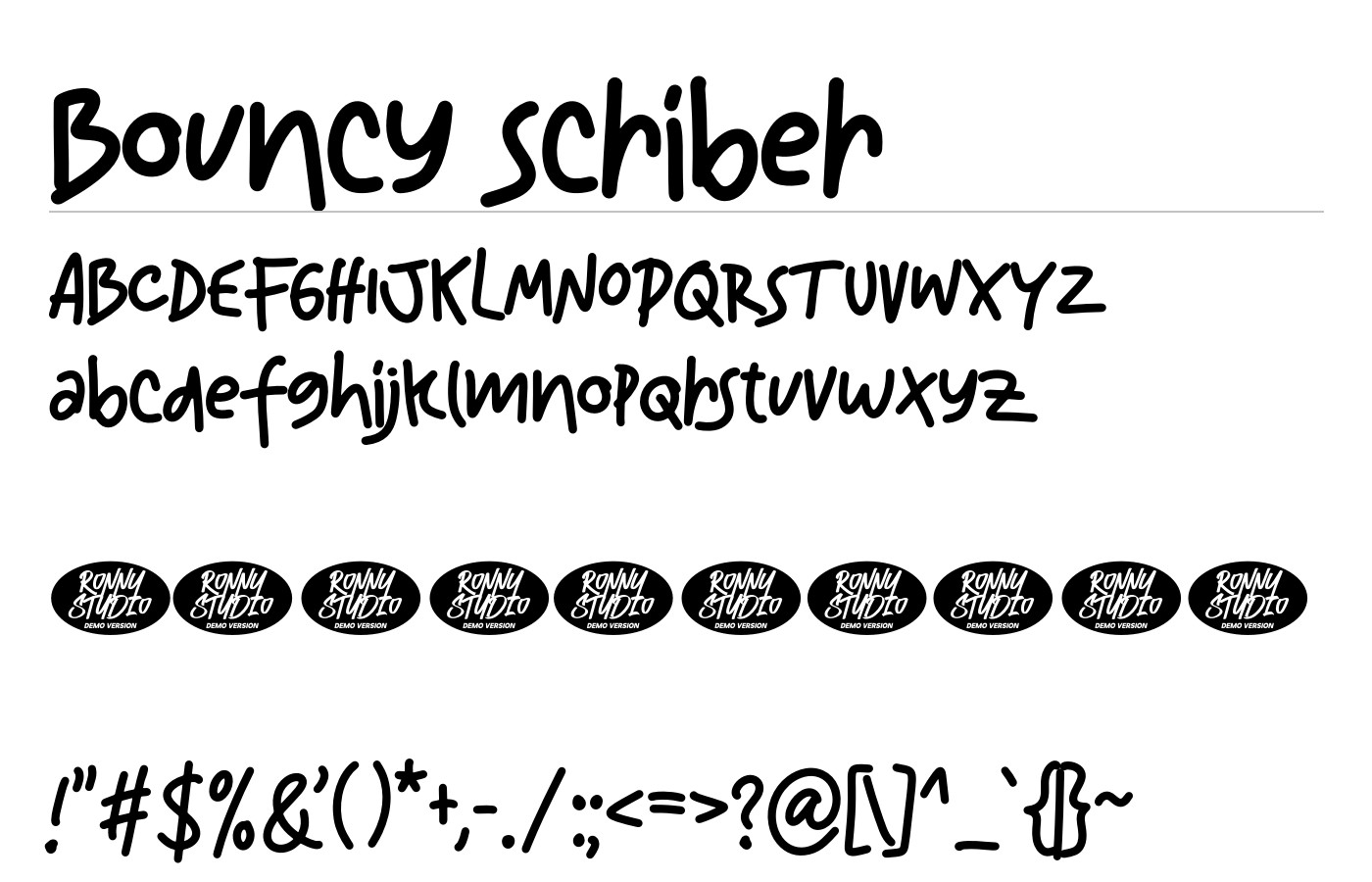
Bouncy Scriber is a playful and informal handwritten font that mimics natural, energetic pen strokes with varying letter heights and slightly uneven baselines. Its casual style and bold, rounded characters make it ideal for creative projects, personal branding, and fun, youthful designs where a friendly and approachable vibe is desired. This font works well in headlines, logos, and packaging that seek to convey a lively and spontaneous personality.
Bouncy Scriber Font
About Bouncy Scriber Font
| Font family | Bouncy Scriber Font |
| Designer | Rony Rizki Jaya |